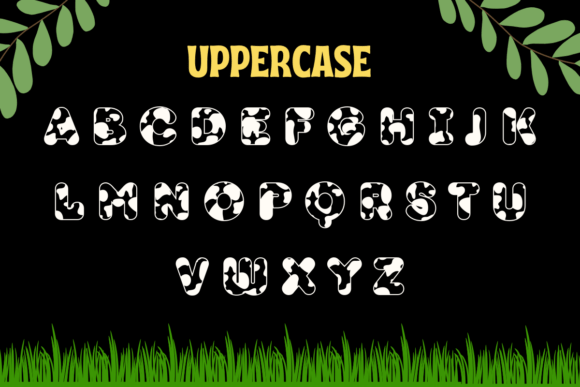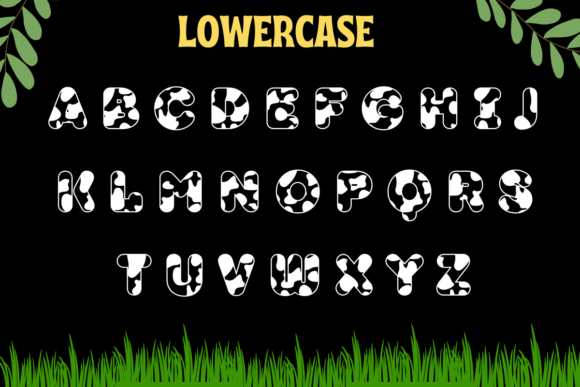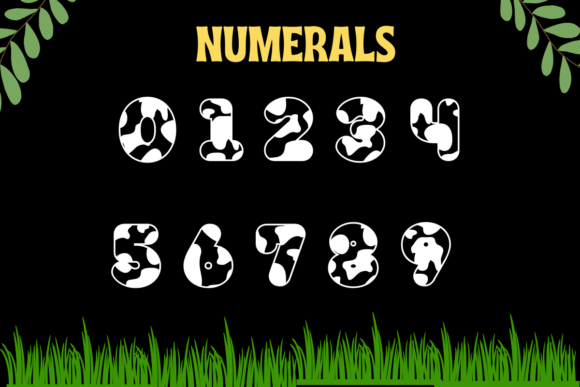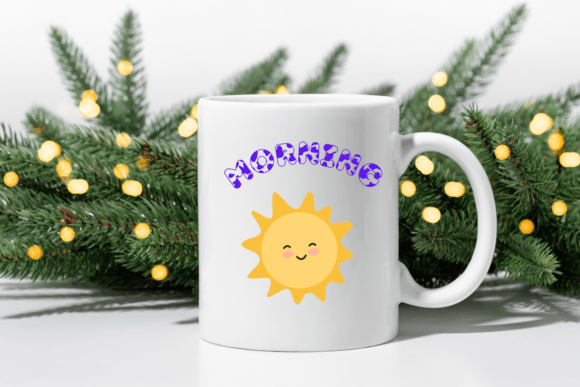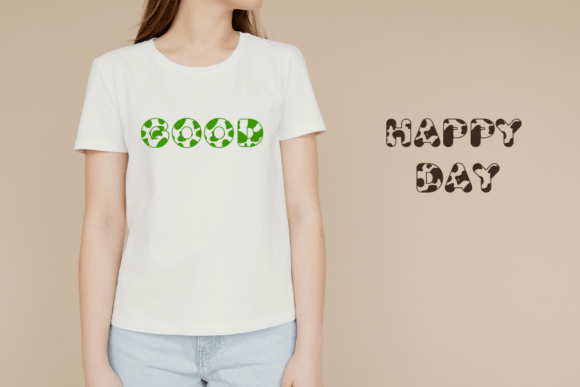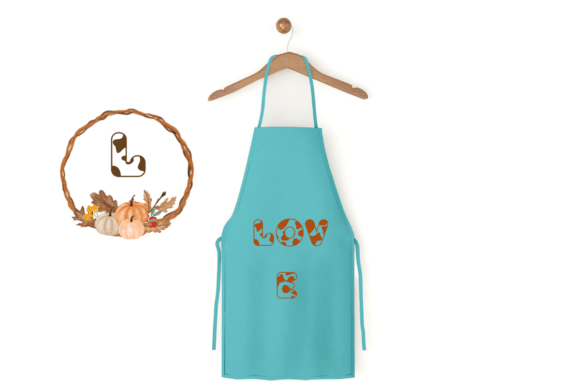
Where Creativity Meets Playfulness: Introducing Animal Cow Font
Remember that moment when you stumbled upon the perfect font for your next project, and suddenly your entire design came together in a burst of creativity? For designers, finding the right font can be a game-changer. It’s a moment that sparks imagination and brings a project to life.
That’s exactly what Animal Cow Font is all about – bringing a playful touch to your designs. This quirky display font features fun cow-print patterns inside each letter, making it perfect for children’s projects, farm-themed designs, party invitations, posters, and branding. With Animal Cow Font, you can add a lively and cheerful touch to any text, making it stand out with charm and character. Whether you’re a seasoned designer or just starting out, this font is a valuable addition to your toolkit.
Key Features of “Animal Cow Font”
- Font Family: A unique, hand-drawn font family designed to resemble animal textures, specifically cow hide.
- Character Set: Includes a wide range of characters, including uppercase and lowercase letters, numbers, punctuation marks, and special characters, making it suitable for various applications.
- Unique Characteristics: The font features a unique texture and design that resembles animal hide, giving it a distinctive and eye-catching appearance.
Designer Review: Animal Cow Font
Overall, I have mixed feelings about the Animal Cow Font. It’s a unique and quirky font that can add a fun touch to certain designs.
- Clever use of cow and animal-inspired elements in the font’s design
- Unique and playful vibe that can be a great addition to creative projects
- Well-suited for use in children’s books, nursery decor, or other projects that require a whimsical feel
- Limited versatility – it may not be the best choice for formal or professional designs
- May be too loud or overwhelming in designs where a more subtle font is desired
- Some characters may not be as well-designed as others, which can affect the overall quality of the font
In terms of overall impression, I think the Animal Cow Font is a fun and quirky addition to any design library. While it may not be the best choice for every project, it can be a great asset for designers looking to add some whimsy and personality to their work.
Animal Cow Font is a great choice for:
- Rustic or country-themed designs